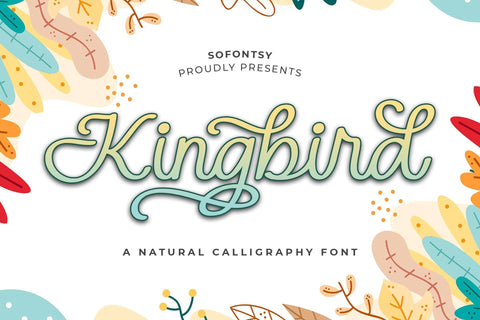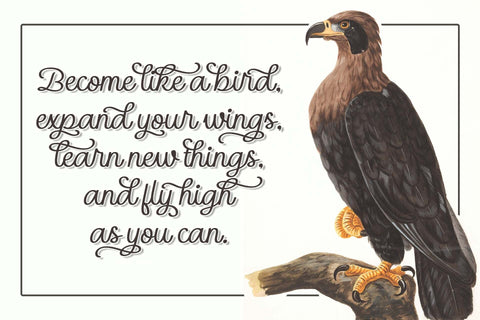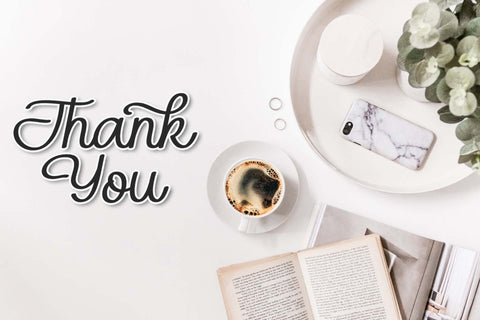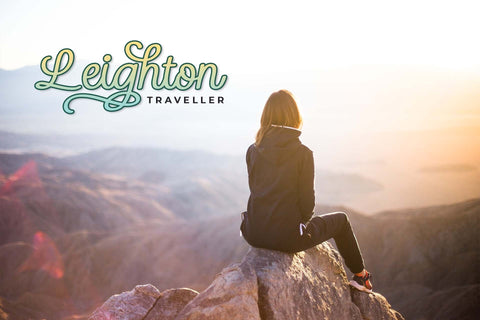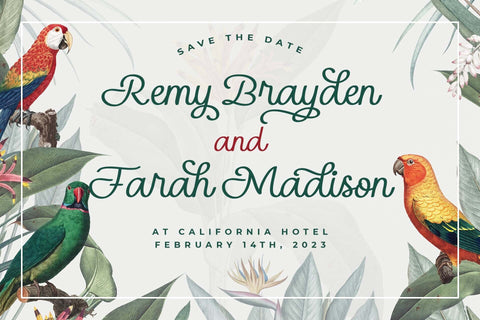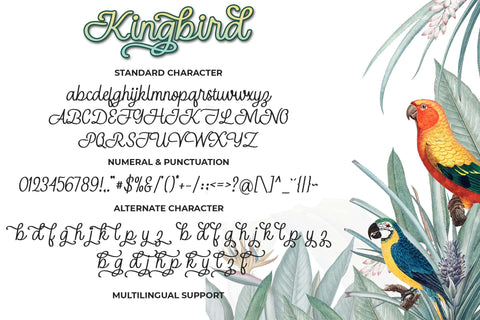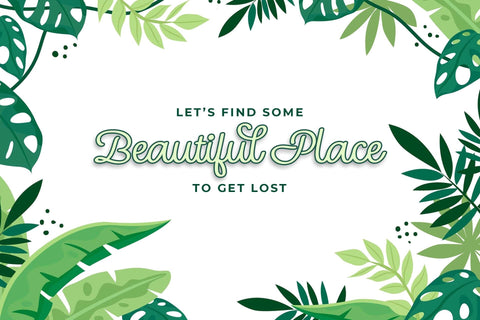
Kingbird
Kingbird is a beautiful and majestic calligraphy font. It is suitable for various design needs such as business cards, wedding invitations, banner ads and various other creations.